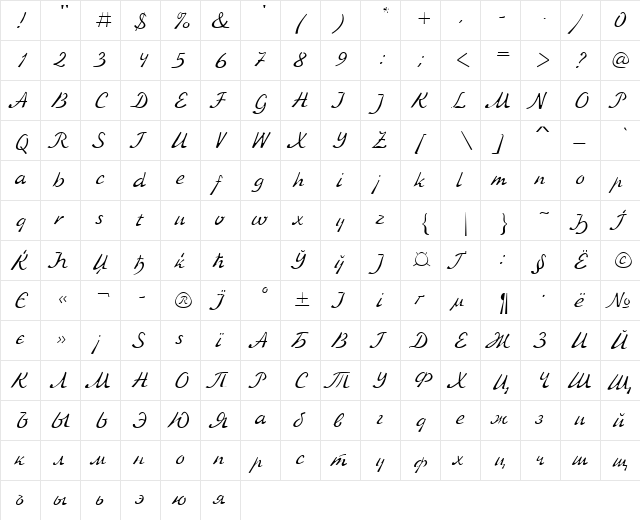
KursivC Regular Font Preview
KursivC Regular
Design Context for KursivC Typeface
KursivC offers clean, dependable letterforms without strong stylistic allegiance, making it a practical choice for designers who need flexibility. The dynamic lean of this cut emphasises speed and emphasis in any layout.
Pro Tip: Use KursivC for emphasis, pull quotes, and subheadings where its slanted energy can add rhythm to the layout.